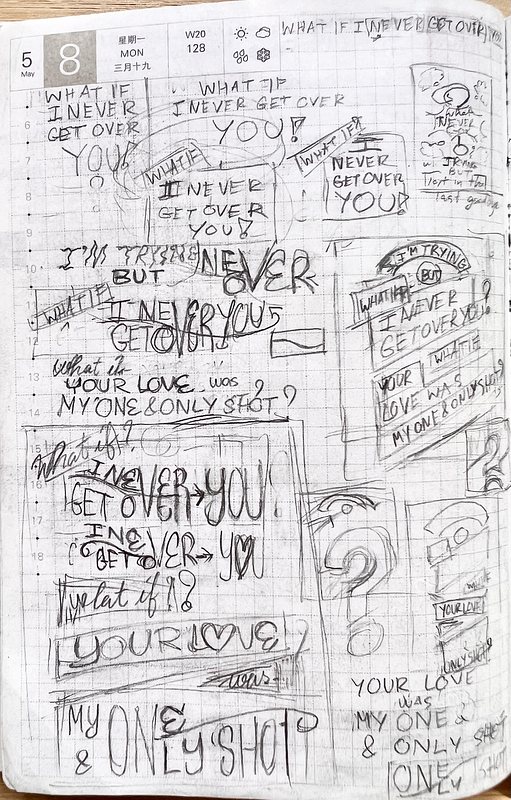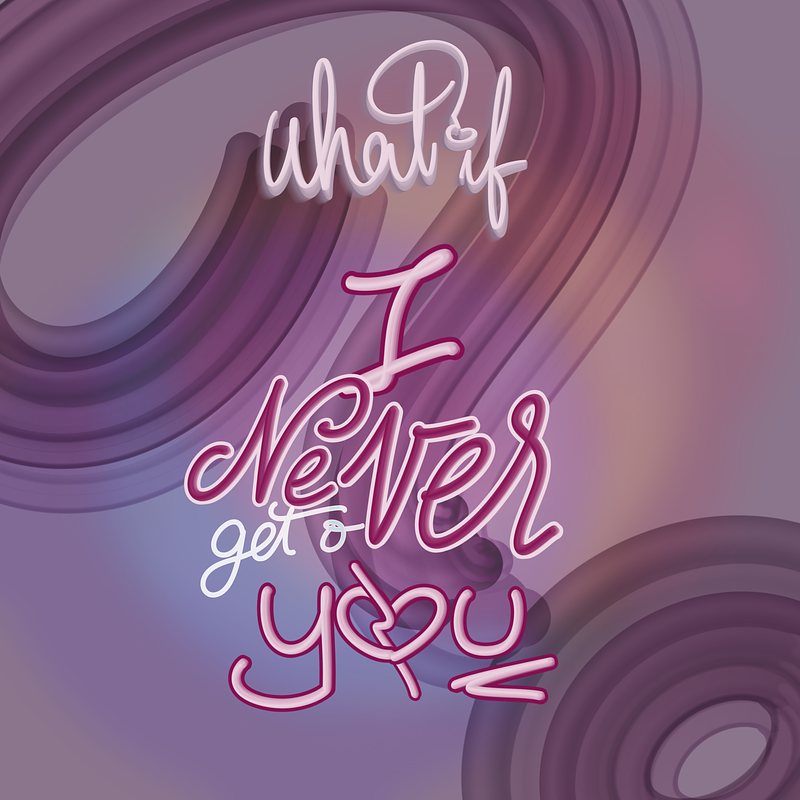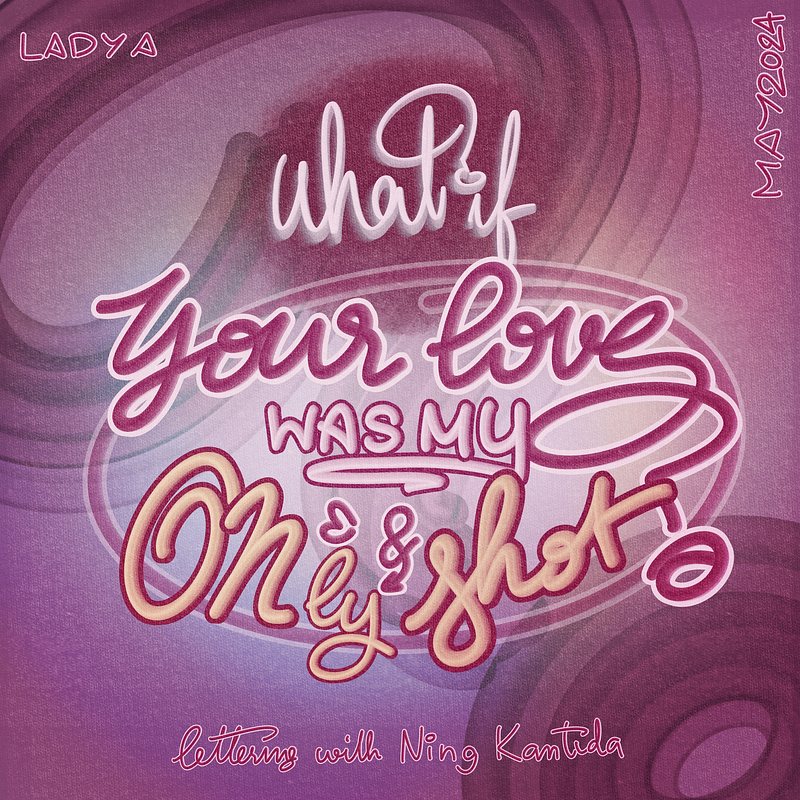
The Lyrics Lettering 00008-What If I Never Get Over You By Lady A
The Work
My design inspired by What If I Never Get Over You By Lady A
The Inspiration
Sometimes what truly haunts you is not the past love, but the not knowing if your next love will ever come when you still hang up on the memories you once had with that person. I liked that sentiment from the song "What If I Never Get Over You" by Lady A.
The Process
I initially thought of using both lines, "What If I never get over you?" and "What if your love was my one & only shot?".
However, I thought the last line had more impact as a standalone. So I went with it.
The process was straightforward on this design, the only thing I tried to make it unique was to have "one & only", and "over" and "never" share the same letters.